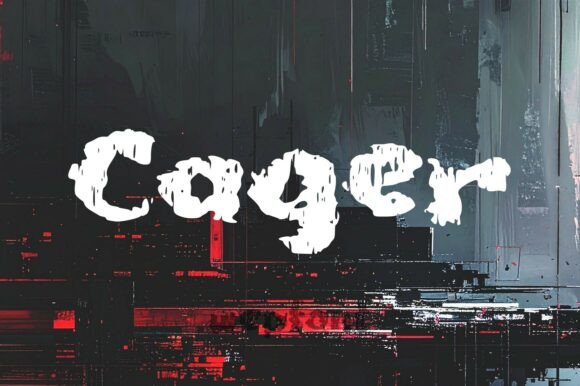
Unleash Your Creativity with Cager: The Ultimate Display Font
I still remember the frustration of working on a project, pouring my heart and soul into it, only to be held back by a font that just didn’t cut it. The struggle was real – I was trying to create a bold, eye-catching design for a street fashion brand, but the fonts I had at my disposal just didn’t convey the edgy, rebellious vibe I was going for. That was until I stumbled upon Cager, a game-changing display font that’s been a total game-changer for my designs.
The Birth of Cager: A Story of Rebellion and Creativity
Cager was born from the raw energy of street art, the power of digital disruption, and the aesthetics of counterculture. It’s a font that’s all about unrefined vigor, audacious defiance, and a wild, untamed spirit. With its commanding letterforms and resolute textures, Cager radiates a handcrafted or glitch-centric vibe that’s sure to grab attention.
My Honest Review of Cager
So, what do I love about Cager? 🤔 Here are a few things that stand out:
- ✨ Unique and bold design: Cager’s cutting-edge appeal is perfect for projects that need a bit of an edge.
- ✅ Comprehensive set of punctuation: This font has got you covered, with a wide range of punctuation marks to ensure versatile and impactful use.
Of course, no font is perfect, and Cager does have a few quirks. For example:
- ⚠️ Some letters may be a bit too bold: While Cager’s bold design is a major selling point, some letters (like the lowercase “l”) may be a bit too bold for certain projects.
- 🤔 Requires a bit of experimentation: With so many OpenType features and glyphs to play with, Cager may require a bit of trial and error to get the hang of.
Design Inspiration: The Story Behind Cager
Cager was designed with the urban landscape in mind – think street art, graffiti, and digital disruption. The font’s creator was inspired by the raw energy of the city, and the way that art and technology are constantly evolving. The result is a font that’s bold, daring, and unafraid to challenge the status quo.
| Q: What kind of projects is Cager best suited for? | A: Cager is perfect for projects that need a bold, edgy vibe – think street fashion, music, art, and digital media. |
Overall, Cager is an incredible font that’s sure to elevate your designs to the next level. With its bold, daring design and seamless compatibility with a range of design platforms, it’s an essential resource for any creative looking to make a statement.